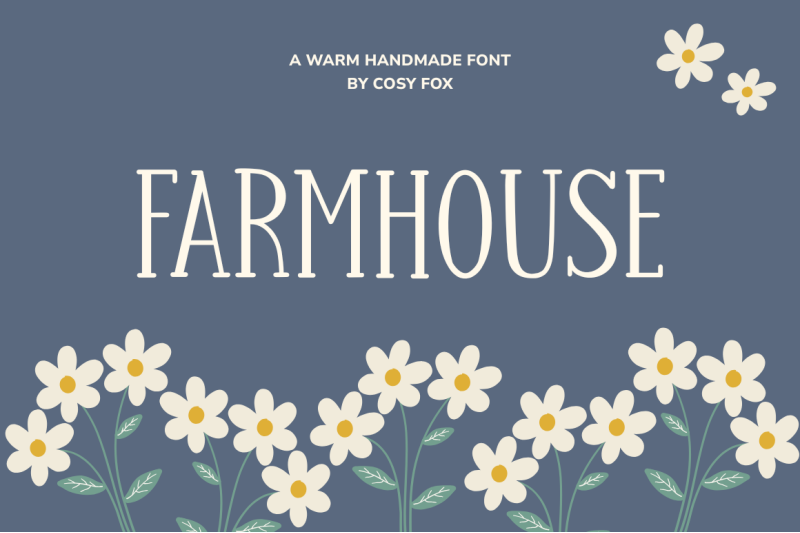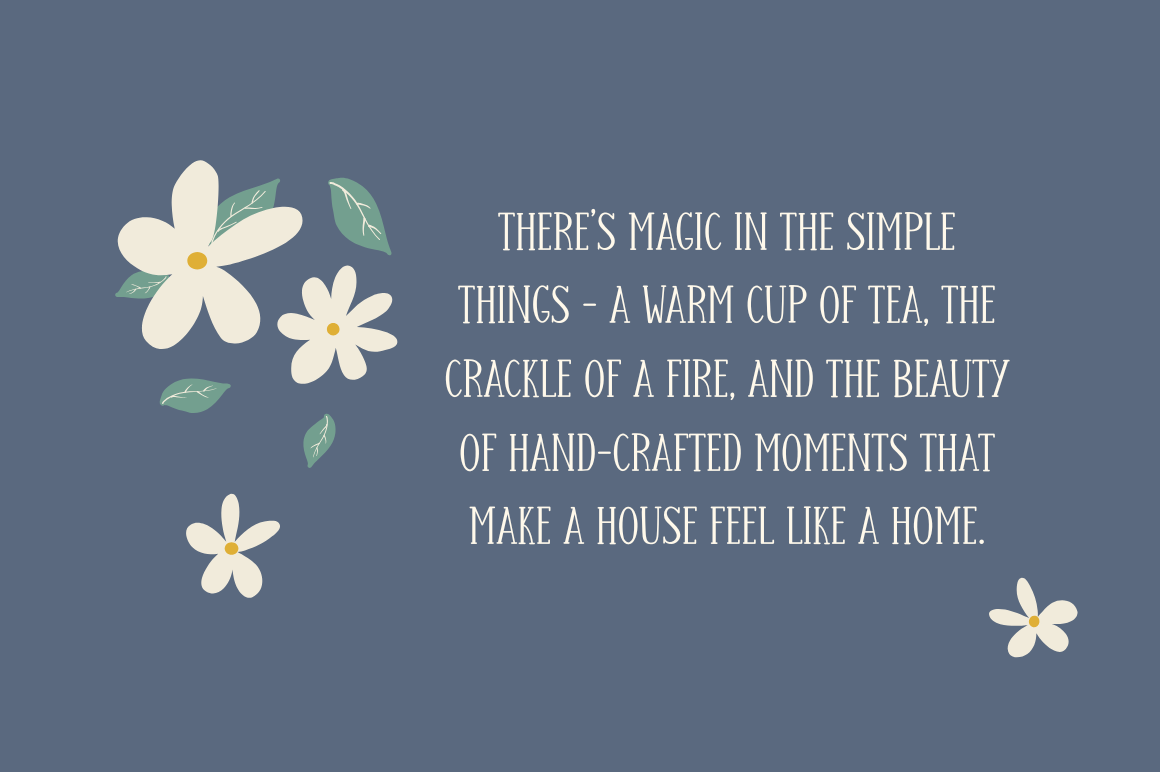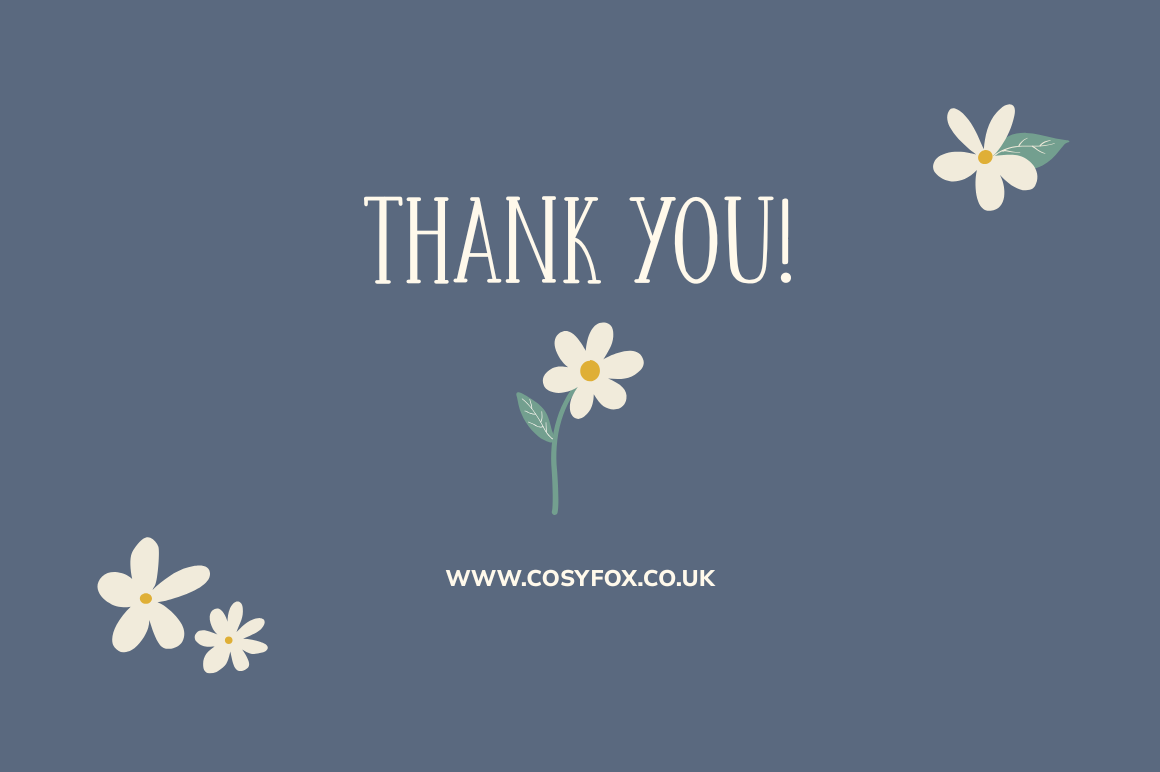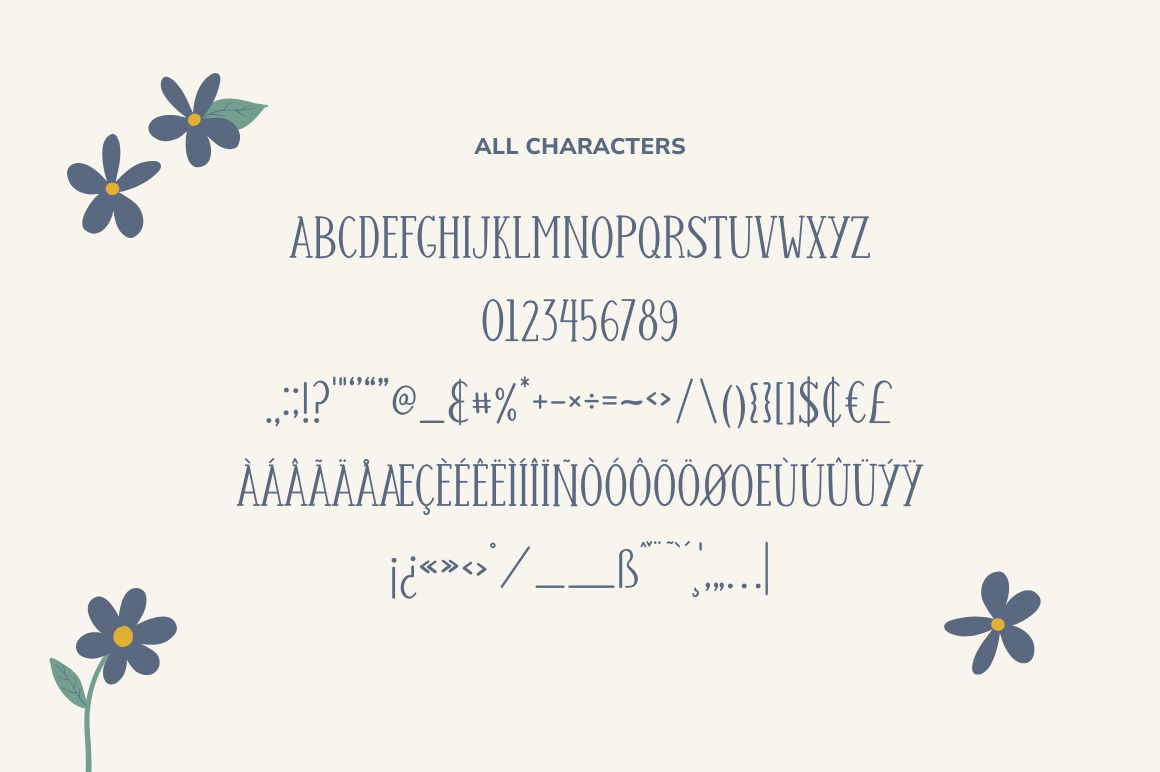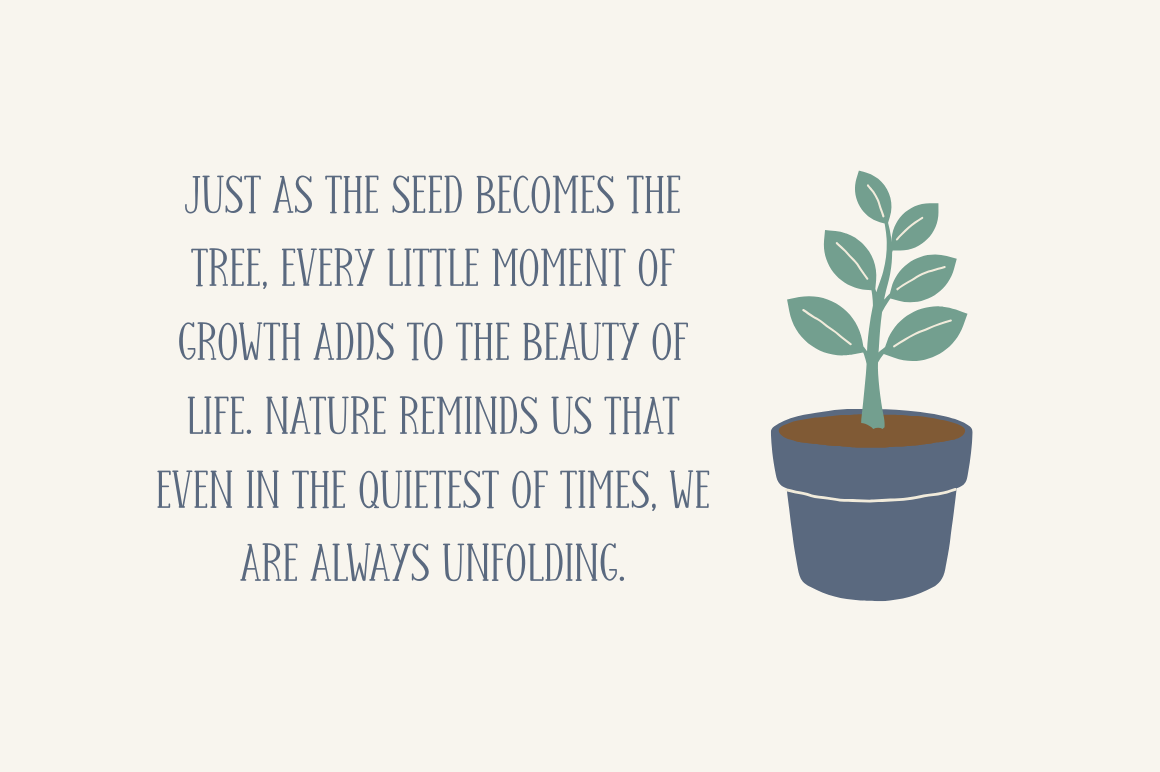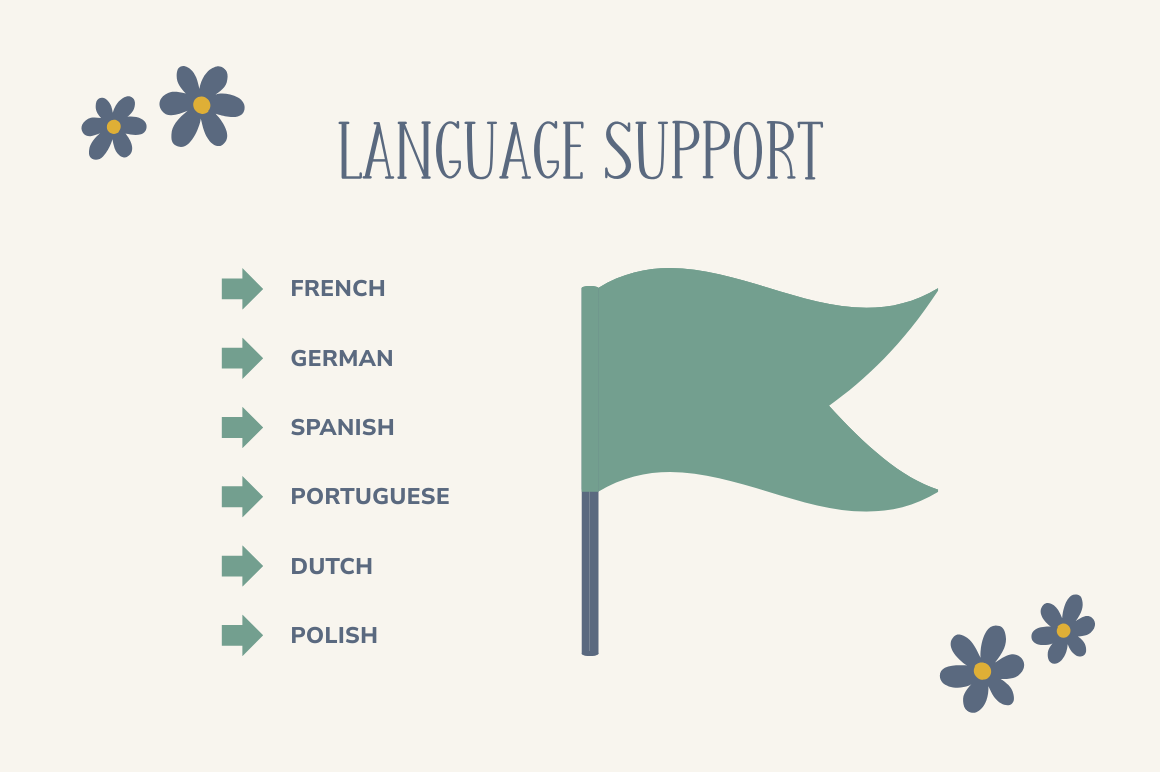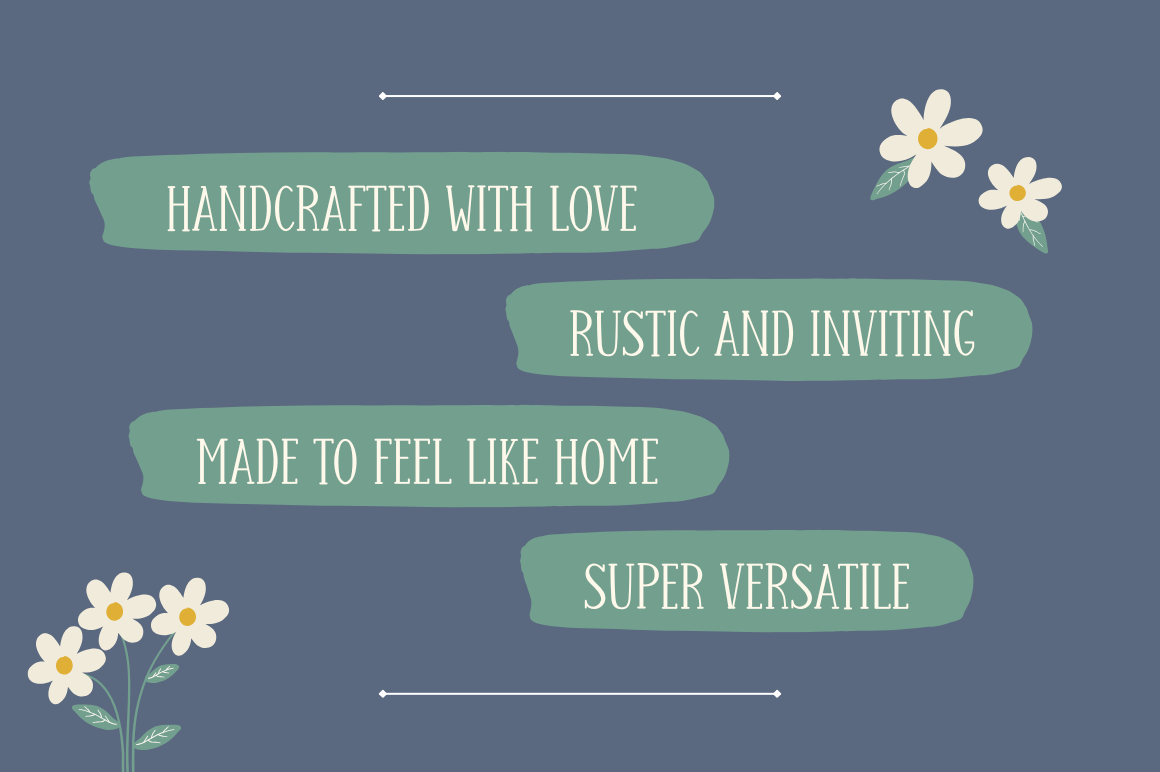
Introducing Farmhouse, a quirky and rustic font designed to bring a cozy, hand-crafted feel to your creative projects. With its imperfect, playful charm, this font is perfect for designs that require a little extra warmth and personality. Whether you’re crafting branding for a small business, designing rustic wedding invitations, or adding a touch of whimsy to your DIY projects, Farmhouse is the ideal choice. Hand-drawn design for an authentic, personal touch. Quirky and rustic. Perfect for vintage, country, or cosy themes. Versatile for a variety of projects – from signage to social media graphics. Easy to use with a clean, readable structure despite its whimsical flair. Bring a little bit of farmhouse charm to your designs with this delightful, hand-drawn font. Perfect for those who love the coziness of home and the warmth of handmade creations. Language Support: French German Spanish Portuguese Dutch Polish What You Get: Farmhouse .OTF file, How to Install PDF. Thank You! www.cosyfox.co.uk.